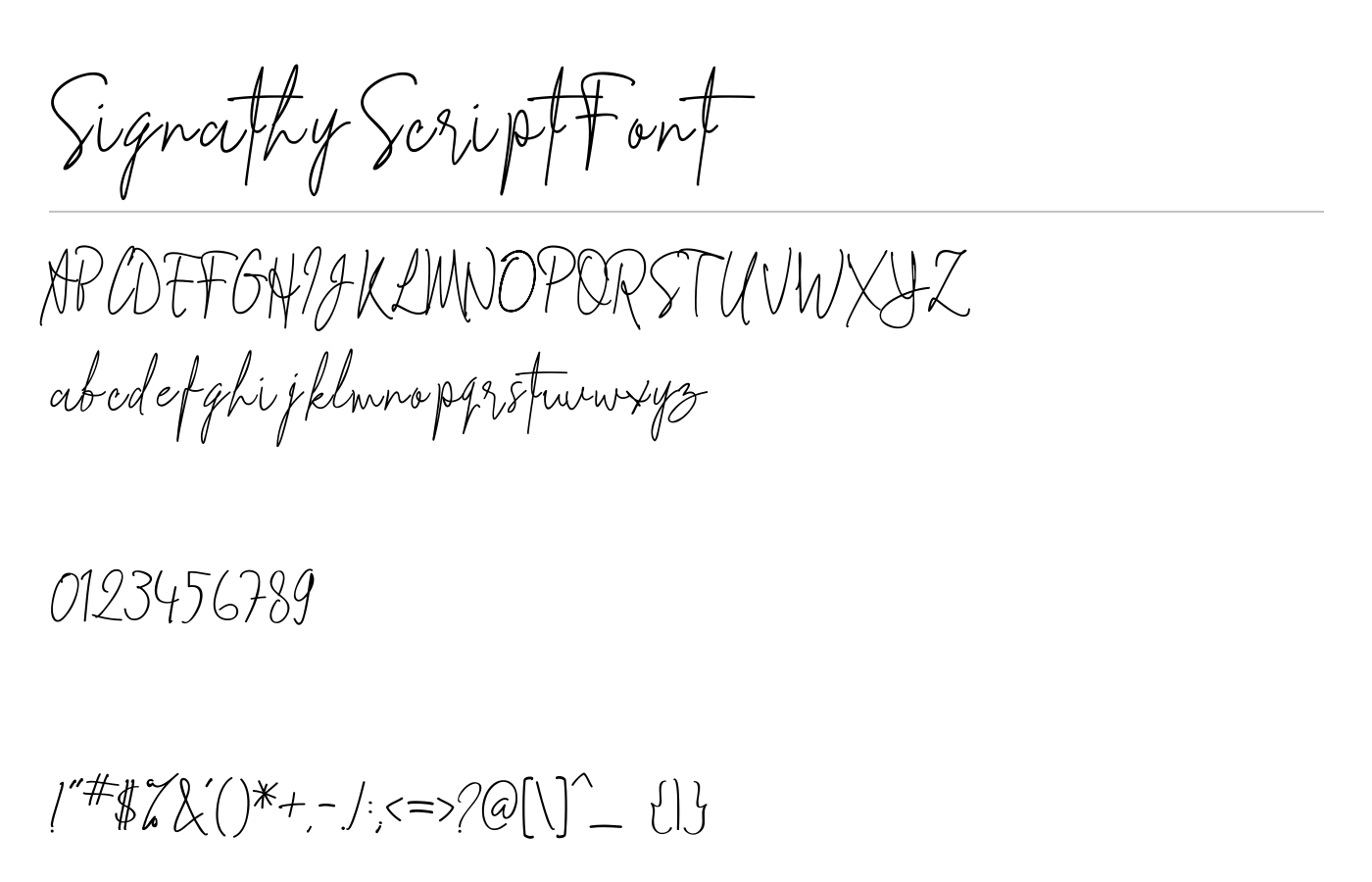
Signathy is a delicate, handwritten script font characterized by its thin strokes, tall x-height, and elegant, flowing forms. Its slender, slightly irregular lines convey a personal, intimate vibe, making it perfect for signature-style branding, wedding invitations, and fashion-related projects. This font works best in headlines or short text where a refined, stylish, and modern handwritten touch is desired.
Signathy Font
About Signathy Font